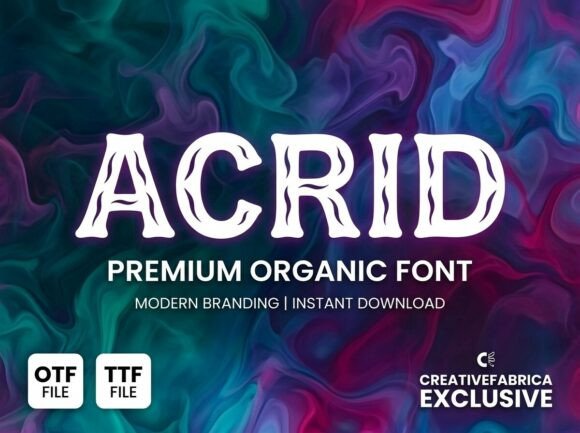
Introducing Acrid Font: Elevate Your Creative Projects with a Decorative Display Font
Are you tired of using the same old fonts for your creative projects? Do you want to add a touch of personality and sophistication to your designs? Look no further than Acrid Font, a decorative display font designed to be the centerpiece of any layout. With its distinct artistic elements and strong character, Acrid Font is perfect for creators who want to break away from the ordinary and elevate their designs to the next level.
What Makes Acrid Font Special?
Acrid Font is a unique and powerful tool for designers and crafters. Its bold and artistic elements make it perfect for creating eye-catching headlines, titles, and decorative initials. The font is designed to deliver a high-end, professional aesthetic without compromising on personality. Whether you’re working on a logo, branding, packaging, or any other creative project, Acrid Font is the perfect choice.
Key Features of Acrid Font
- All-Caps Display Typeface: By design, Acrid Font is an all-caps display typeface, which means it does not contain lowercase letters. This makes it a powerful tool for logos, titles, and decorative initials, where you want to make a bold statement.
Why Choose Acrid Font?
There are many reasons why Acrid Font stands out from the crowd. Here are just a few:
- Unique and Artistic: Acrid Font has a distinct artistic style that sets it apart from other fonts. Its bold and creative elements make it perfect for designers who want to add a touch of personality to their designs.
- High-End Aesthetic: Despite its bold and artistic style, Acrid Font delivers a high-end, professional aesthetic that’s perfect for branding, packaging, and other creative projects.
How to Use Acrid Font
Acrid Font is perfect for a wide range of creative projects, including:
- Logos and Branding: Use Acrid Font to create bold and eye-catching logos and branding materials that make a lasting impression.
- Headlines and Titles: Add a touch of personality to your headlines and titles with Acrid Font’s bold and artistic elements.
- Packaging: Use Acrid Font to create stunning packaging designs that stand out on store shelves.
- Decorative Initials: Add a touch of elegance to your designs with Acrid Font’s decorative initials.
If you’re looking for a decorative display font that can elevate your creative projects to the next level, look no further than Acrid Font. With its unique and artistic style, high-end aesthetic, and ease of use, Acrid Font is the perfect choice for designers and crafters who want to break away from the ordinary and create something truly special.